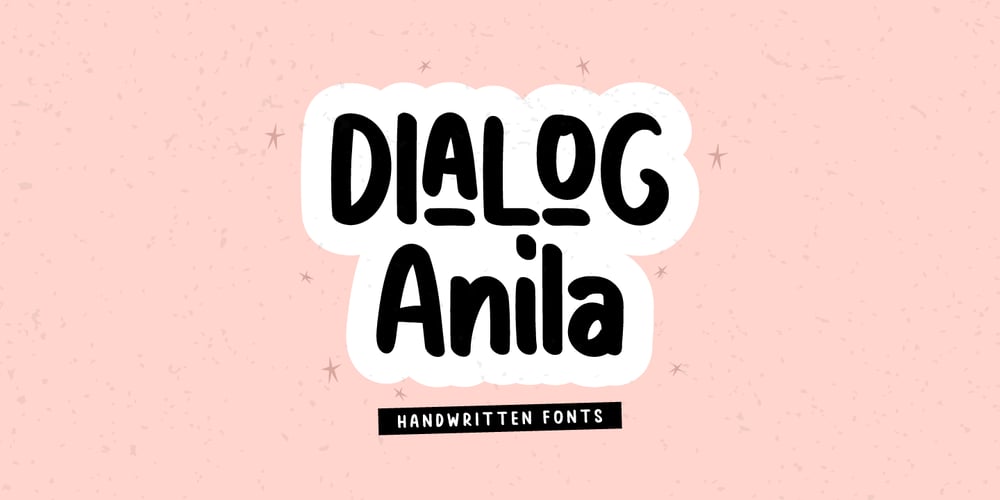
Dialog Anila
Dialog Anila font
Dialog Anila Font Family was designed by Prio Nurokhim Aji and published by Prioritype. Dialog Anila contains 1 styles and family package options. Simple and eye-catching display fonts for your design touch. You can apply it to packaging designs, posters, logos, quotes, merchandise etc. See some of the previews above for reference.Features:-Uppercase-Lowercase-Numeral-Punctuation-Multilingual-PUA Encoded-Opentype Features